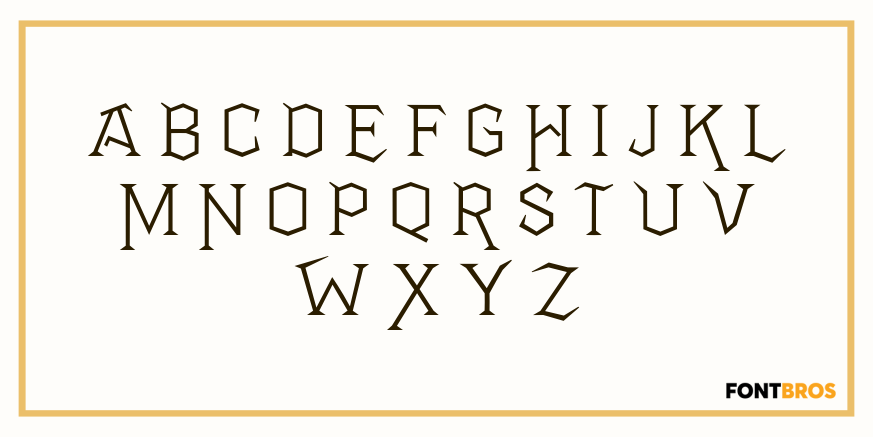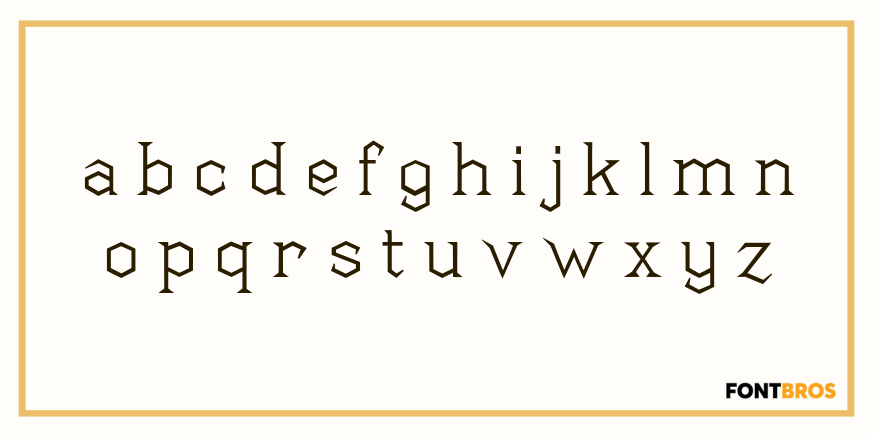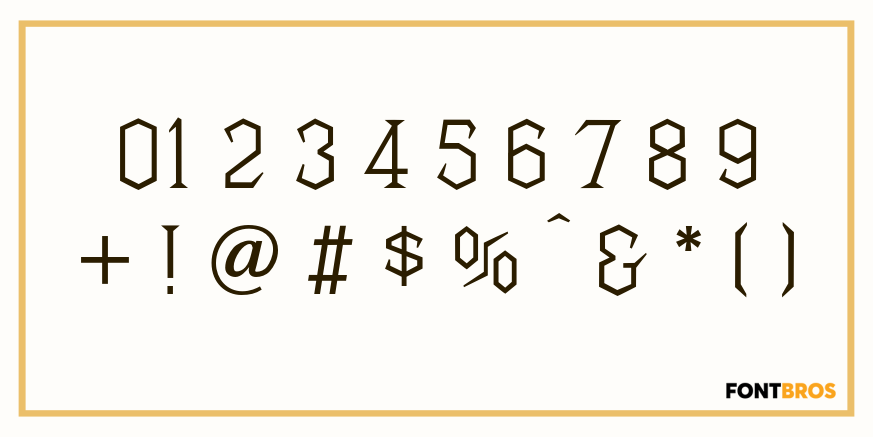
Benjamin
Fonts without curved lines were quite popular in Victorian times. We drew this one back in the days of T-squares and triangles, and based it on a type that we felt could stand to be improved. (Arrogant, eh?)
Benjamin includes 200 glyphs.
Benjamin by Solotype